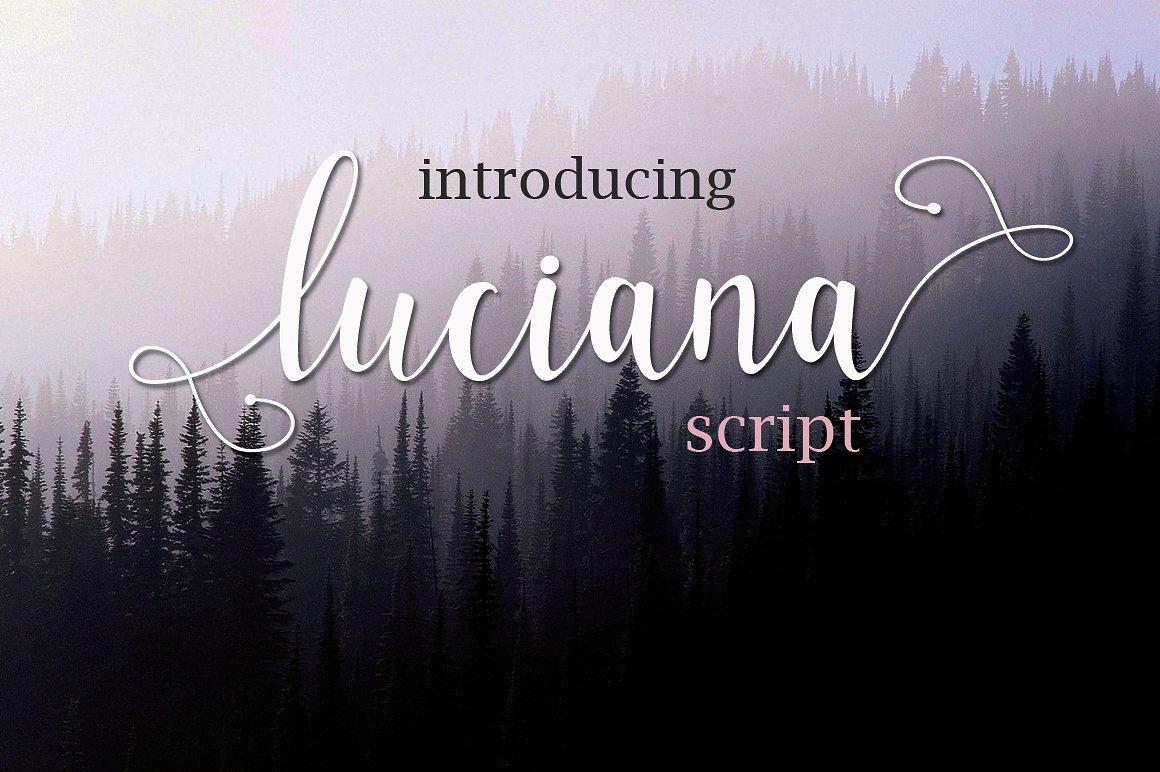
Luciana Script
Luciana Script Font
Luciana is a script typeface beautiful calligraphy and modern. This font is suitable for a wide range of products each project, such as wedding invitations, greeting cards, correspondence, and various other purposes and many more.
Luciana Script